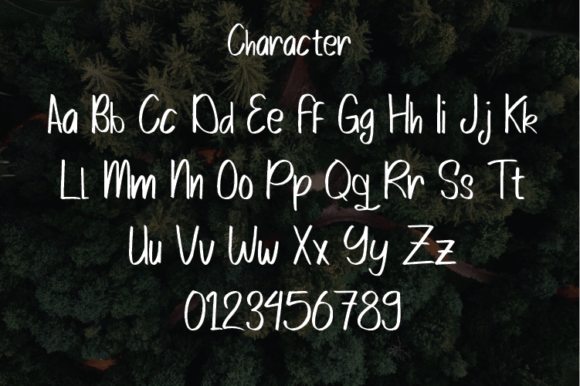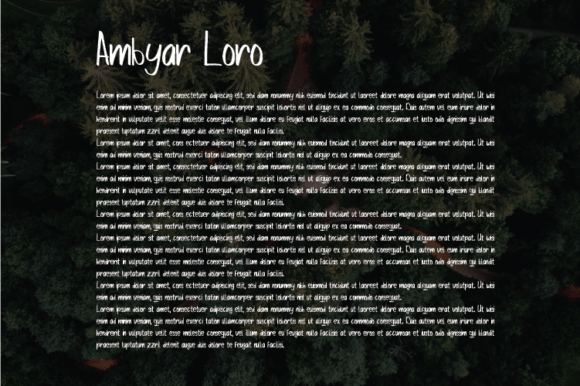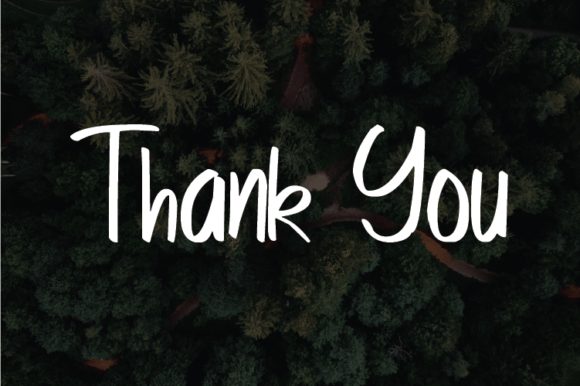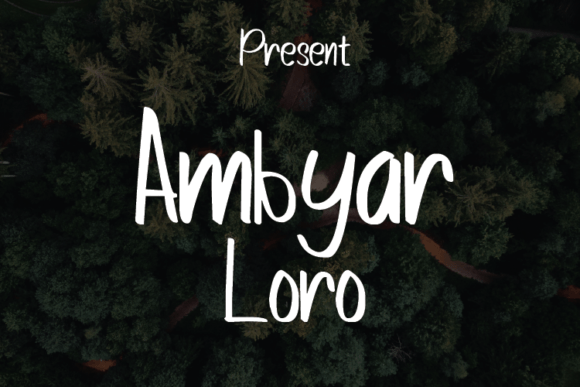
The Ambyar Loro Font: A Modern Script Typeface for Elegant Designs
I’ll never forget the time I was working on a luxury branding project for a high-end fashion client. I had spent hours pouring over design concepts, but something was missing – the perfect font. That’s when I stumbled upon the Ambyar Loro font, a script typeface that has a simple style and modern look. It was love at first sight! ✨ In this article, I’ll share my experience with this stunning font, its features, and how to make the most of it in your designs.
An Honest Review of Ambyar Loro
• ✨ Elegant and luxurious feel, perfect for high-end branding and designs
• ✅ Simple yet modern style that works well for a variety of applications
• 💫 Highly legible, even at small font sizes
• 🎨 Versatile and flexible, suitable for various design projects
While Ambyar Loro is an excellent font, there are a few things to keep in mind: 🤔
• ⚠️ Limited availability of condensed or expanded styles, which might limit its use in certain designs
• ⚠️ Some characters may not work well in all languages or scripts
The Backstory of Ambyar Loro
The Ambyar Loro font was designed with the goal of creating a modern script typeface that’s both elegant and versatile. The designer aimed to craft a font that would be perfect for luxury branding, high-end designs, and creative projects. With its simple yet stylish look, Ambyar Loro has become a popular choice among designers and crafters.
Q: What is the Ambyar Loro font best suited for?
A: Ambyar Loro is perfect for elegant and luxurious designs, such as logos, book or movie titles, fashion branding, magazines, clothing, and quotes.
Q: Is Ambyar Loro a difficult font to read?
A: No, Ambyar Loro is highly legible, even at small font sizes. Its simple yet stylish design makes it easy to read and understand.